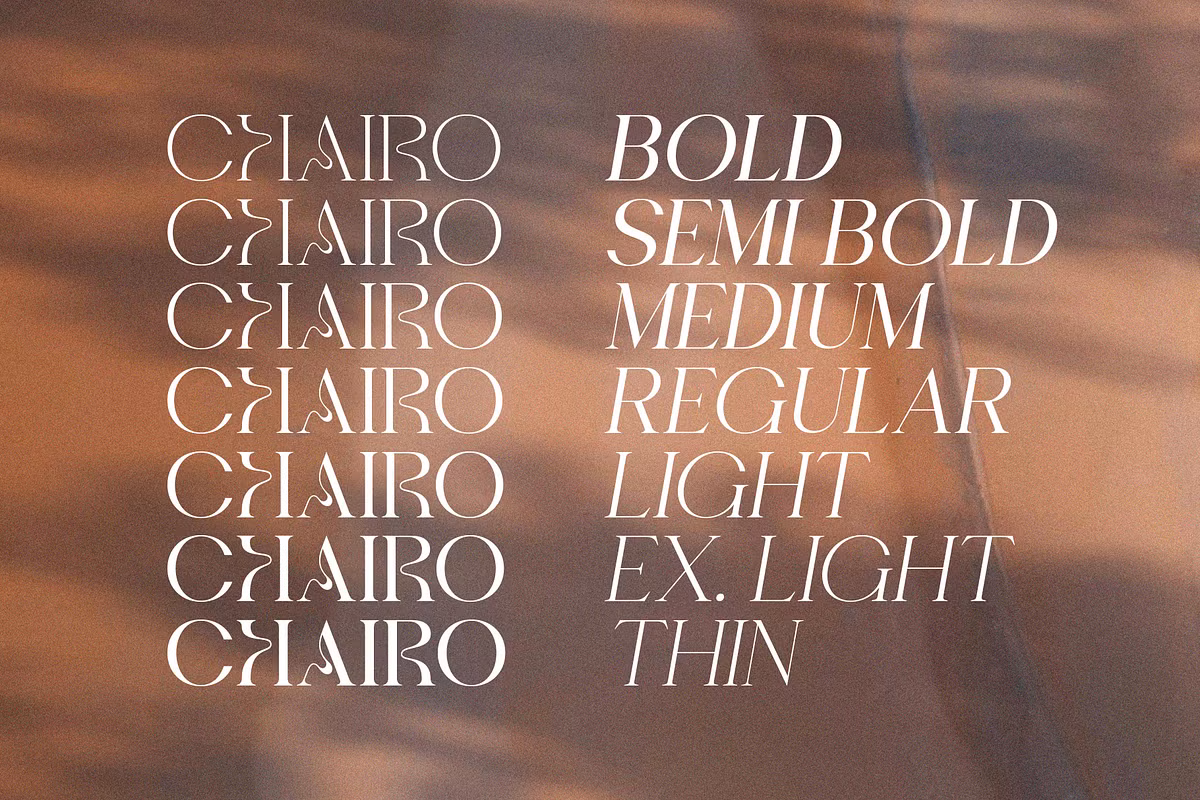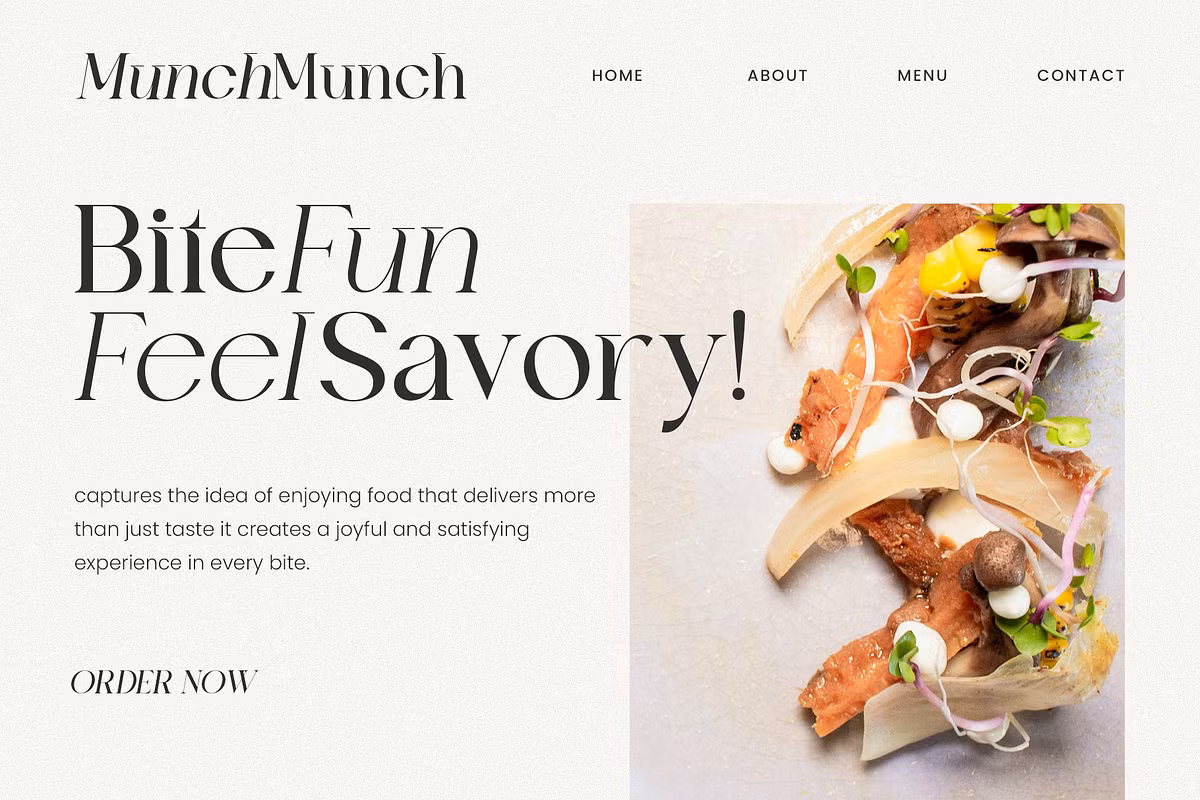
Chairo: Elegant Editorial Serif Font Family for Modern Design
Chairo is a beautifully designed serif font that adds a touch of elegance and sophistication to any project. It’s perfect for creating stunning editorial layouts, branding materials, and more. This font family has a classic, timeless look that will make your work stand out with its polished, professional feel. Whether you’re working on a magazine, website, or marketing campaign, Chairo is a great choice to elevate your typography and give your project a modern, refined look. With its clear and modern design, Chairo is sure to bring a level of sophistication to your creative work, making it perfect for anyone looking to add a touch of class to their designs.
Elegant font design showcasing Chairo's features
Chairo’s elegant typography in a design context
Chairo’s design is all about elegance and balance. It has beautiful curves and unique letter shapes that make it stand out. The people who created it paid close attention to every detail, which makes it look great and work well too. The classic parts of the font, like the serifs, give it a traditional and trustworthy feel. But it also has some modern elements that make it feel current and stylish. When you put it all together, Chairo is a font that feels both classic and new at the same time. It’s easy to like and use, because it has a familiar feel to it, but it’s also fresh and exciting.
Chairo is a great font for making things look clear and easy to read, even when they’re small. This makes it perfect for using in magazines, books, and websites. It’s also really good at making things look nice and fancy, without taking attention away from what’s important. You can use it for lots of different things, like making a brand look fancy, or creating a beautiful presentation. It’s a very flexible font, so it can fit in with lots of different design styles. Whether you’re working on something simple or something complicated, Chairo can help make it look great. It’s a good choice for anyone who wants to make their work look professional and elegant.
Key Features of Chairo
• 14 Weights and Italics: Chairo offers a wide range of 14 carefully crafted weights along with matching italics. This extensive variety gives designers the flexibility to create dynamic typographic hierarchies, from bold headlines to delicate body text.
• Stylish Alternates: The font family includes stylish alternates that can be used to enhance the uniqueness of your designs, allowing for a more personalized touch.
• Multilingual Support: Chairo provides support for multiple languages, making it an excellent choice for international projects.
Showcasing various weights and styles of Chairo font
Chairo font weights and styles for versatile design
Chairo’s character set is extensive, featuring uppercase and lowercase letters, numbers, and punctuation. This comprehensive selection allows you to create a wide array of typographic designs without limitations. The thoughtful design of each character ensures that they harmonize beautifully together, maintaining a cohesive look throughout your project.
Chairo is even more versatile because it supports many languages, which makes it perfect for brands that need to communicate globally. This means you can use Chairo for projects that involve different languages, and you don’t have to worry about the style or readability being affected. Whether you’re working on a global campaign or a local project that needs to reach a diverse audience, Chairo’s multilingual support has got you covered, allowing you to convey your message clearly and consistently across different languages and cultures.
Chairo is really versatile and can be used in lots of different ways, which makes it perfect for all sorts of design projects. Let’s take a look at some of the key areas where Chairo really stands out:
• Editorial and Magazine Design: Chairo’s elegance and clarity make it perfect for editorial layouts, where readability is paramount. It can help create stunning headlines and body text that capture readers’ attention.
• Branding and Visual Identity: For brands looking to convey a sense of sophistication and modernity, Chairo is an excellent choice. Its elegant letterforms work harmoniously in logos and branding materials.
• Fashion and Beauty Projects: The refined aesthetic of Chairo aligns perfectly with the fashion industry. Use it in lookbooks, advertisements, and promotional materials to convey luxury and style.
• Wedding Invitations: For those designing invitations, Chairo’s elegant curves lend a romantic touch that is perfect for weddings and special occasions.
When working with Chairo, pairing it with complementary typefaces can further enhance your design. Here are some pairing suggestions:
• Sans-Serif Fonts: Pair Chairo with a clean sans-serif font like Helvetica or Montserrat for a modern contrast that keeps the overall design fresh and readable.
• Display Fonts: Combining Chairo with a bold display font can create a striking visual impact, especially in headlines or promotional materials.
• Handwritten Fonts: When you want to add a personal touch to your design, think about combining Chairo with a beautiful handwritten font. This works really well for things like invitations or branding for small shops. It creates a warm and welcoming feel that draws people in.
Whether you’re working on a high-end branding project or a simple editorial layout, Chairo is a great choice because it adds a polished and professional touch to your work. By using Chairo, you can create designs that exude confidence and timeless style, which is perfect for making a lasting impression on your audience. Overall, Chairo is a great investment for any designer who wants to elevate their typography and take their designs to the next level.
Chairo displayed in various design applications
Chairo’s application in diverse design projects